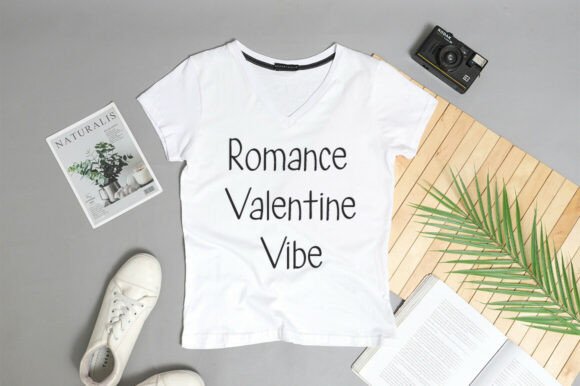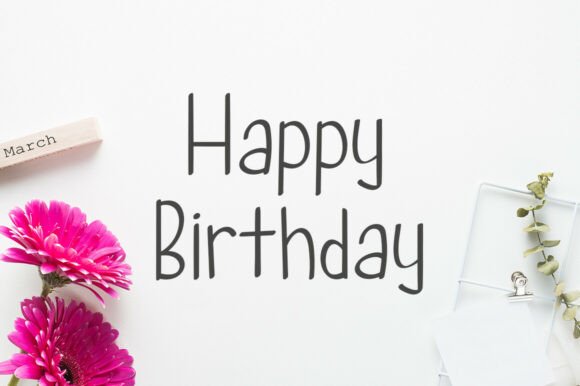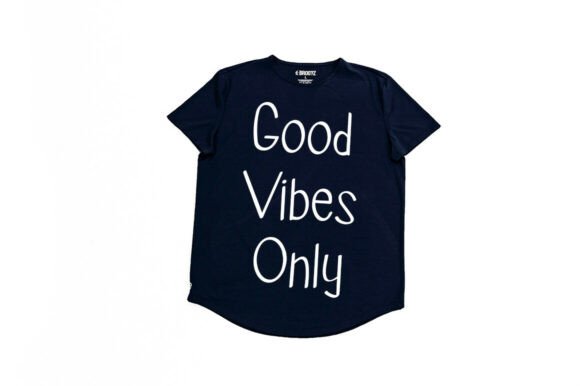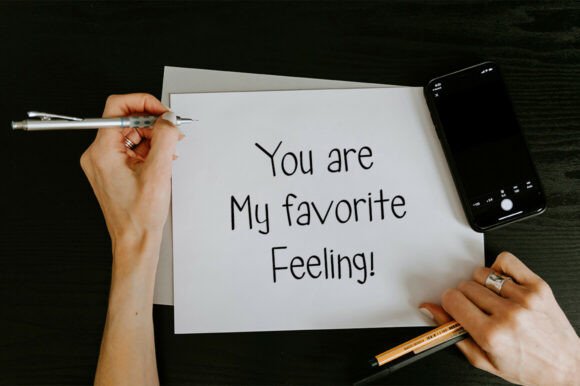
Introduction to Daniela Ashley Font
The Daniela Ashley font is a masterclass in relaxed elegance.
Featuring a gentle, monoline stroke, the Daniela Ashley typeface evokes the feel of a handwritten letter from a dear friend Its airy letterforms and balanced spacing make it highly readable, even in longer blocks of text, such as blog headers or editorial layouts.
Key Features of Daniela Ashley Font
Why Choose Daniela Ashley Font?
Daniela Ashley Font offers exceptional quality and versatility, making it a valuable addition to your design toolkit. Whether you’re creating for personal projects or commercial use, Daniela Ashley Font delivers professional results.